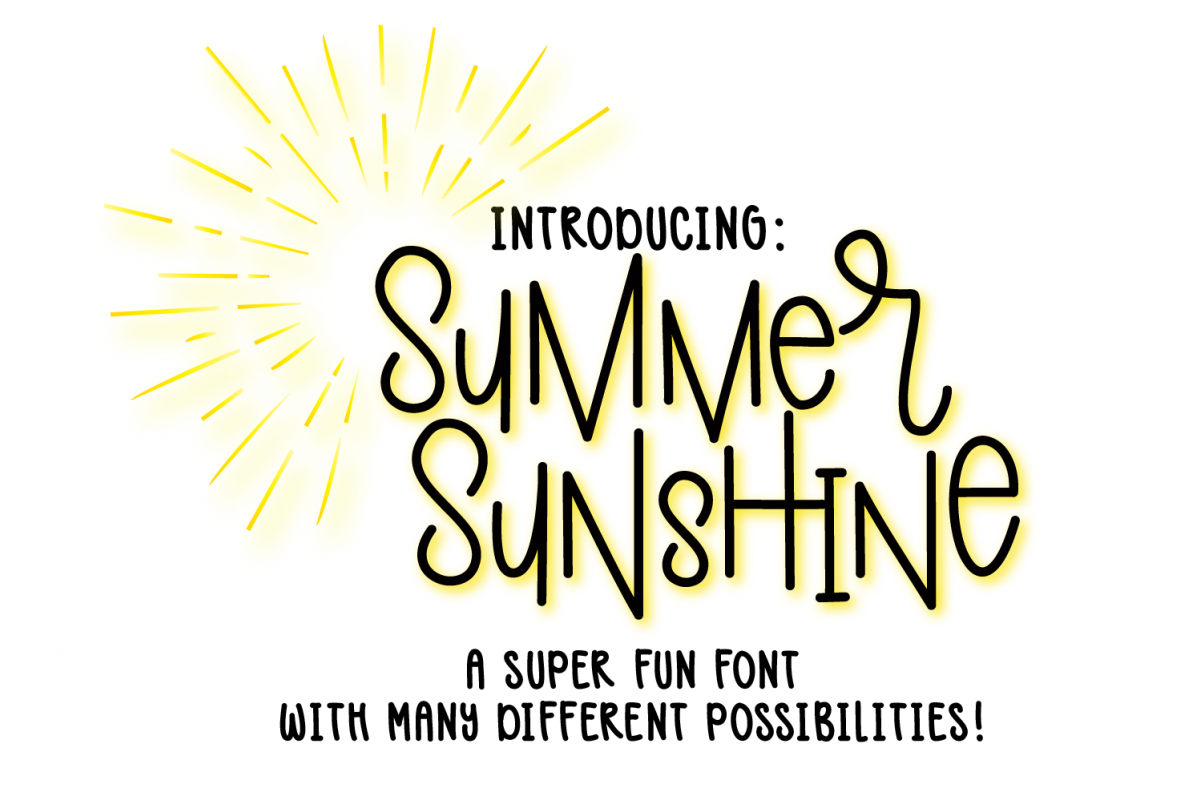
'Summer Sunshine' is a font that is hand lettered by me. :)
It is super fun to work with and will make your work pop!
Mix the Uppercase and Lowercase to give your project a funky, quirky and fun feel. This font looks great on T-shirts, mugs, cards and so much more!